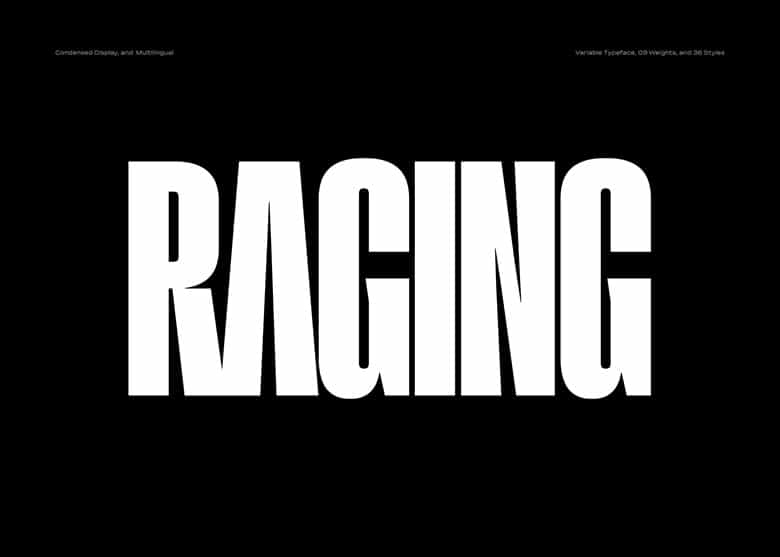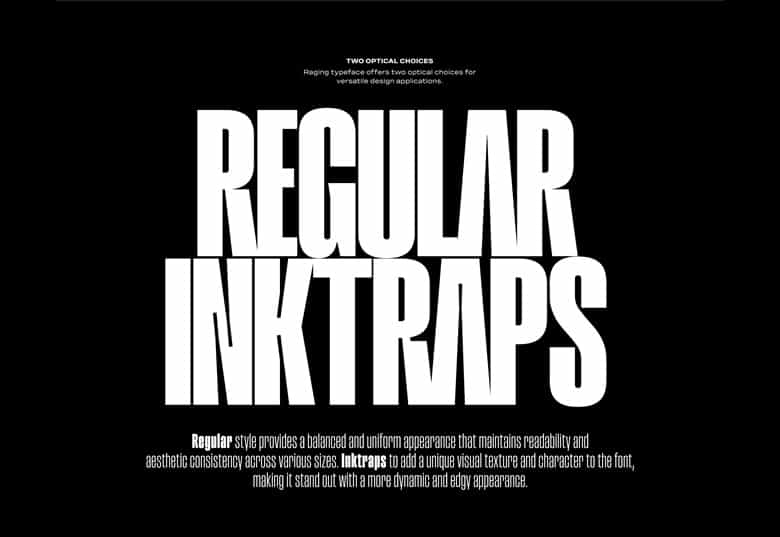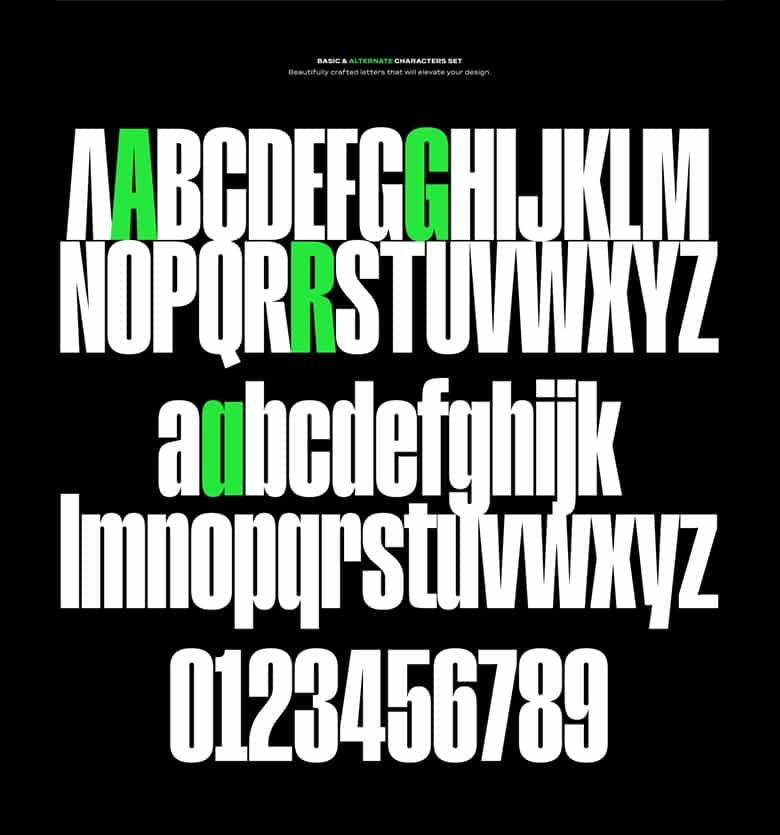
Raging is a rational, warm and robust display font family that has been created by Rajesh Rajput. It is a one-word typeface that has an incredible potential for diverse and multiply use for design works. Certain characters boast the boldness, but can also be tone down with simplified alternates Raging offers two optical choices: Regular and Inktraps. This style is normal and gives a uniform and standard look and feel as this makes it very easy to read and present.